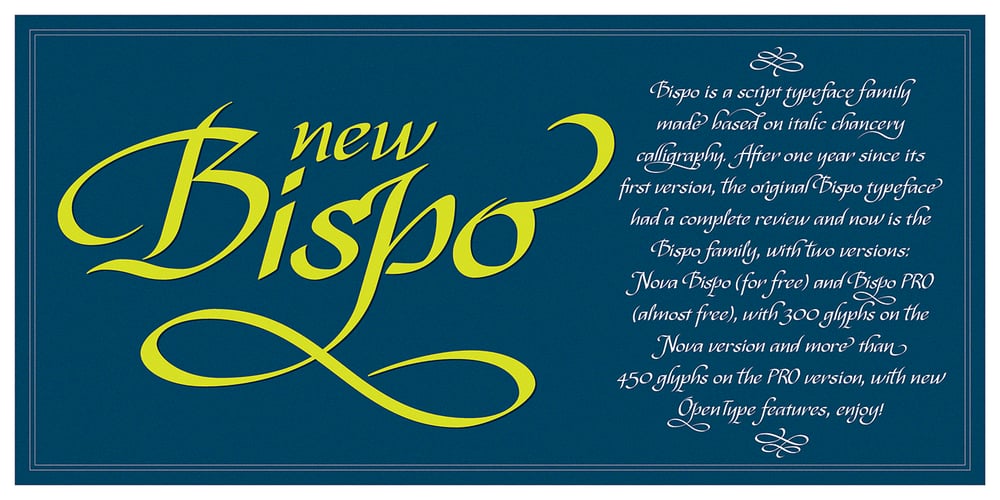
Bispo
Bispo font
Bispo Font Family was designed by Jackson Alves and published by Custom Types. Bispo contains 2 styles and family package options. Bispo is a script typeface family made based on italic chancery calligraphy. After one year of it first launch, Bispo family now has another variant, a Bispo Pro version. The Pro version now contains more than 450 glyphs and new OpenType features, enjoy!